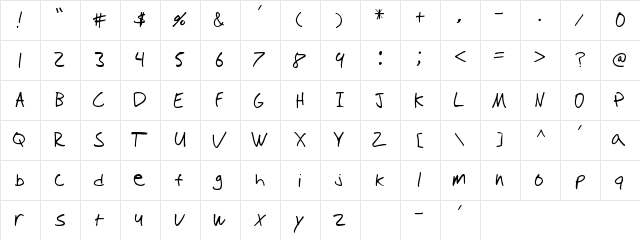
Tioem-Handwritten Regular
Design Context for Tioem-Handwritten Typeface
Tioem-Handwritten flows with the natural rhythm of handwritten lettering, making it ideal for designs that call for warmth and personal expression.
Font Pairing: Combine Tioem-Handwritten with a simple geometric sans for maximum contrast — the tension between flowing curves and clean structure is a classic typographic pairing.
Pro Tip: Pair Tioem-Handwritten with a clean sans-serif for supporting text. The contrast between fluid script and geometric structure creates an elegant typographic hierarchy.